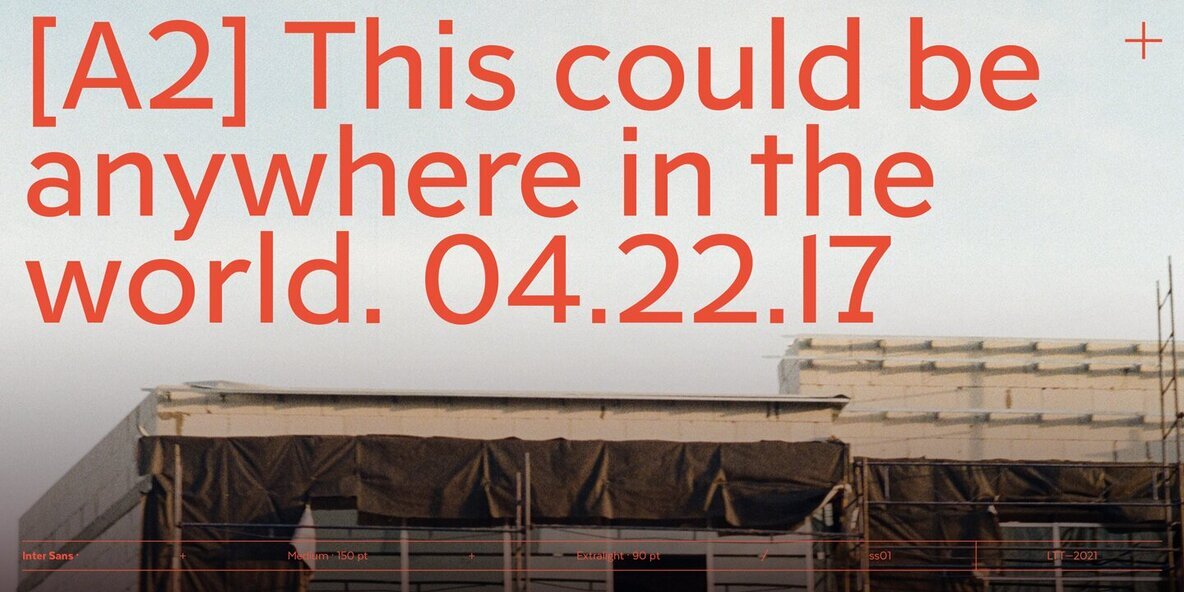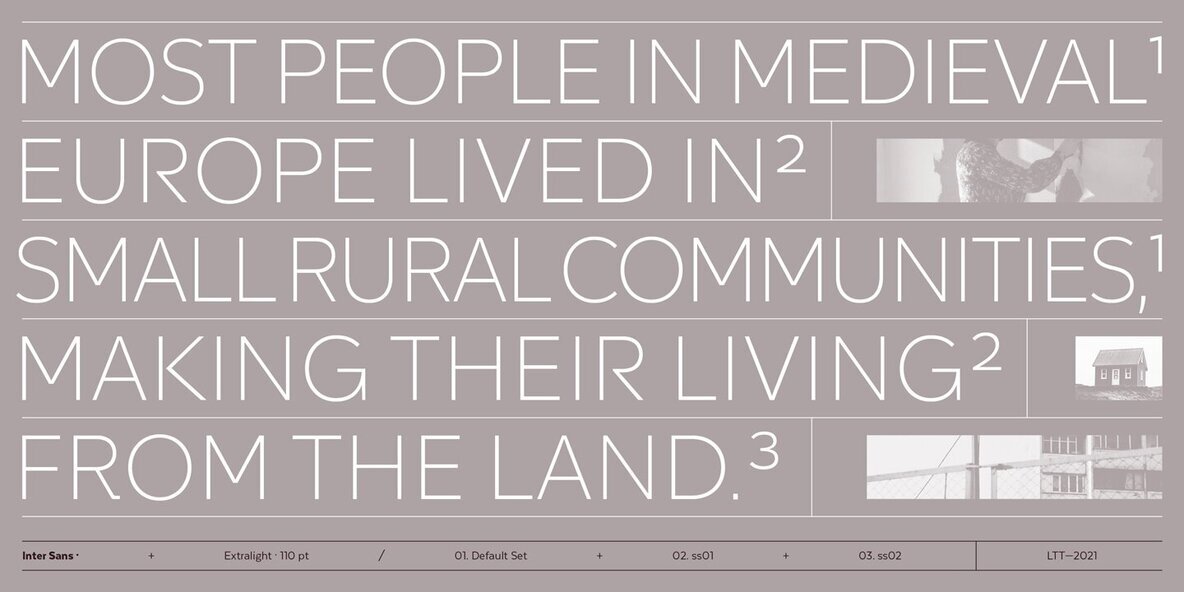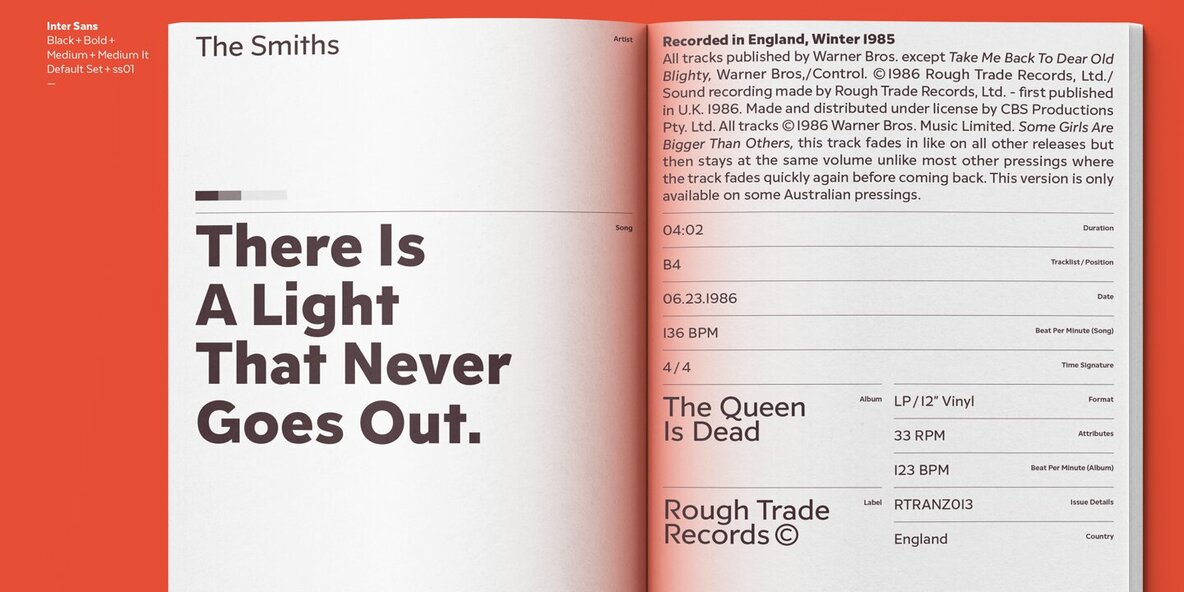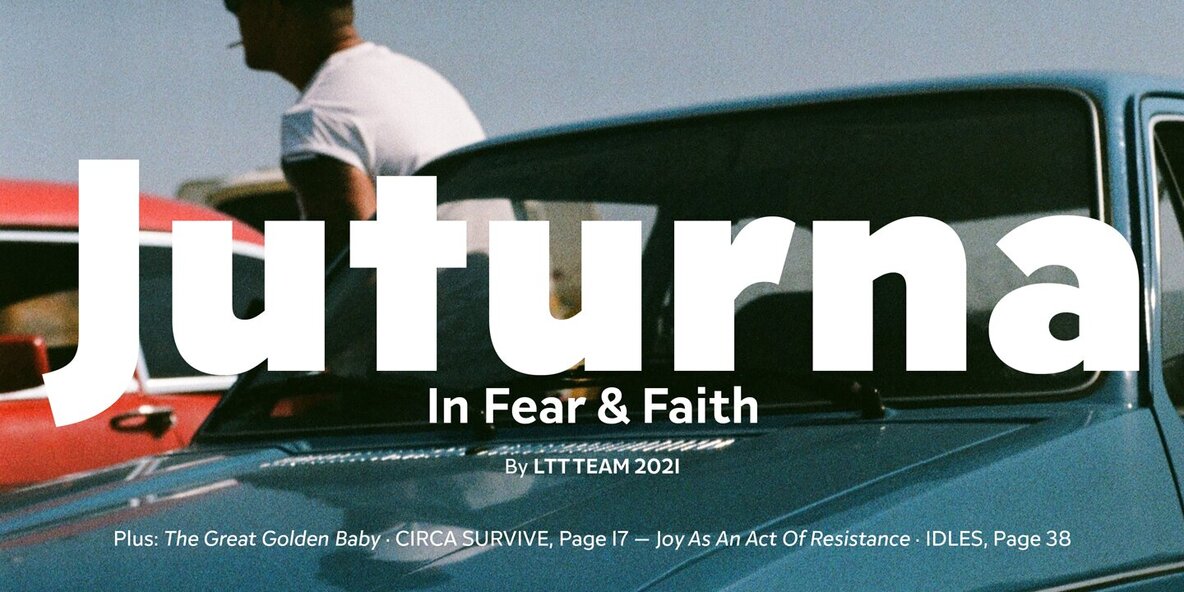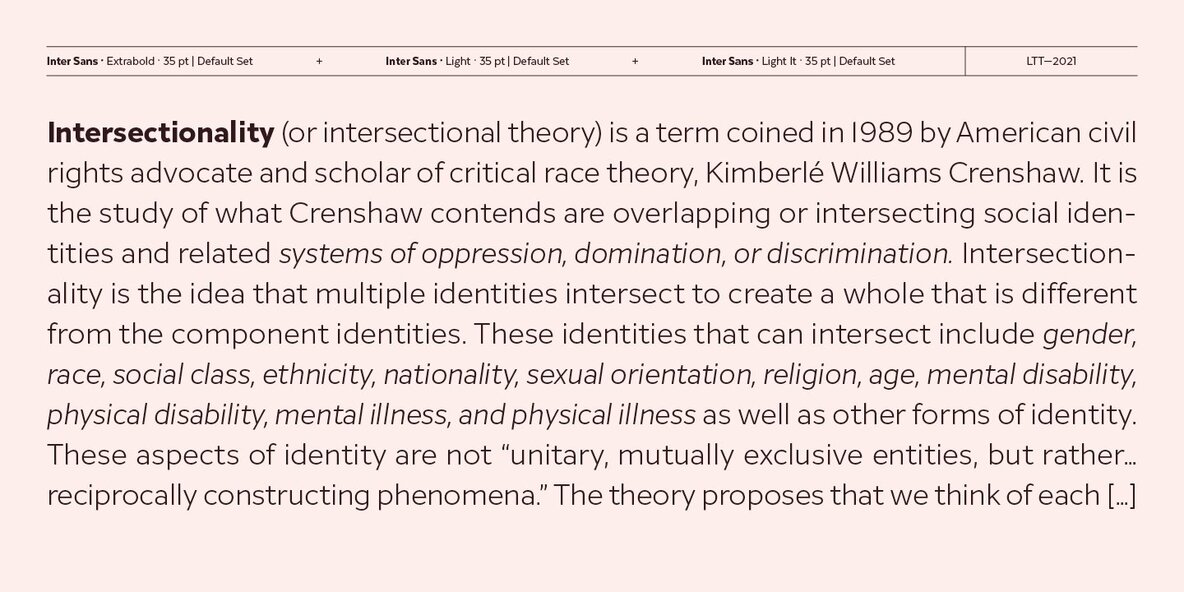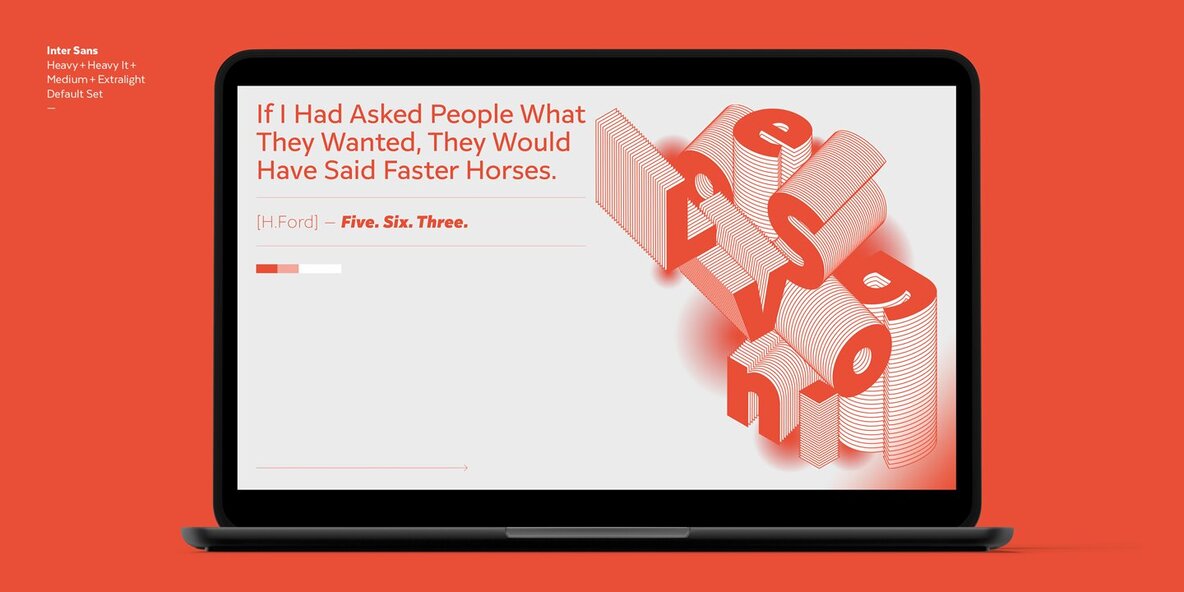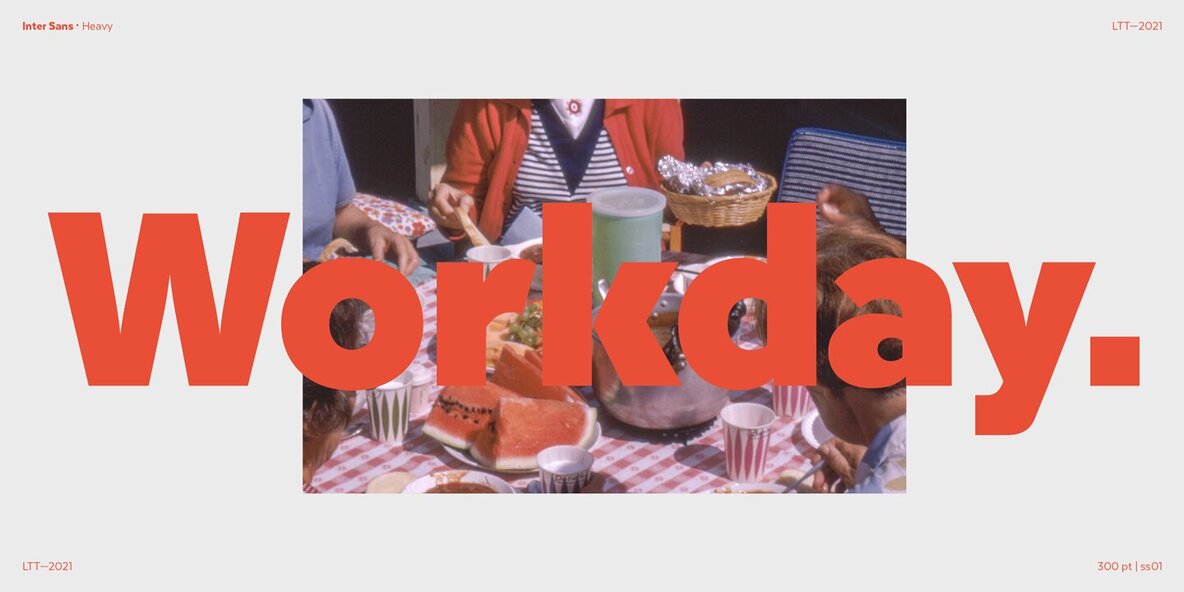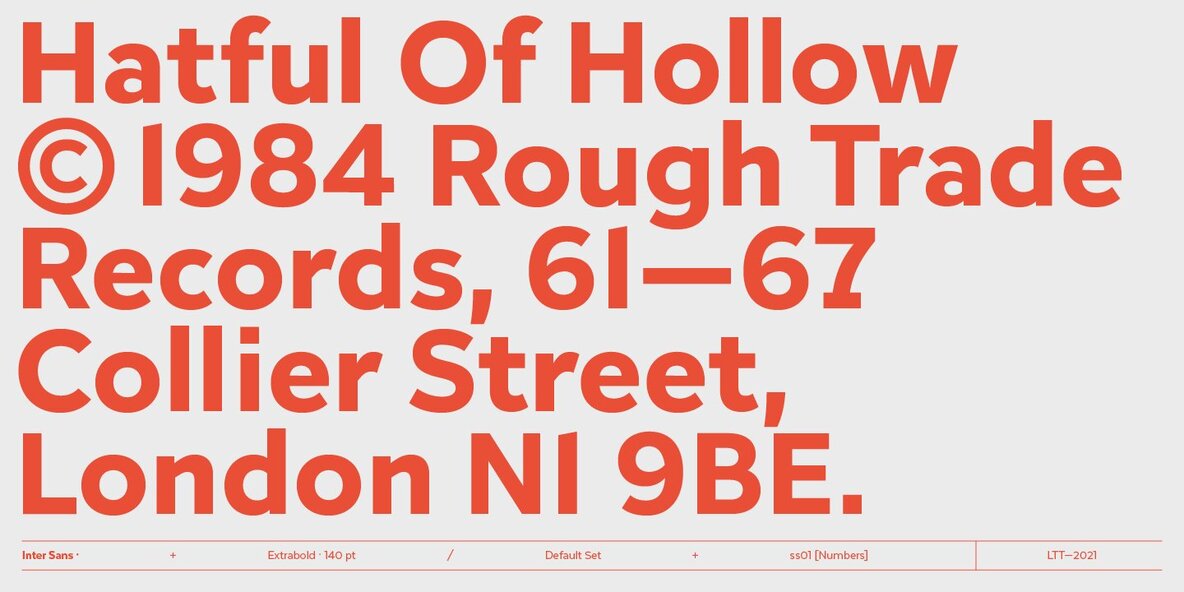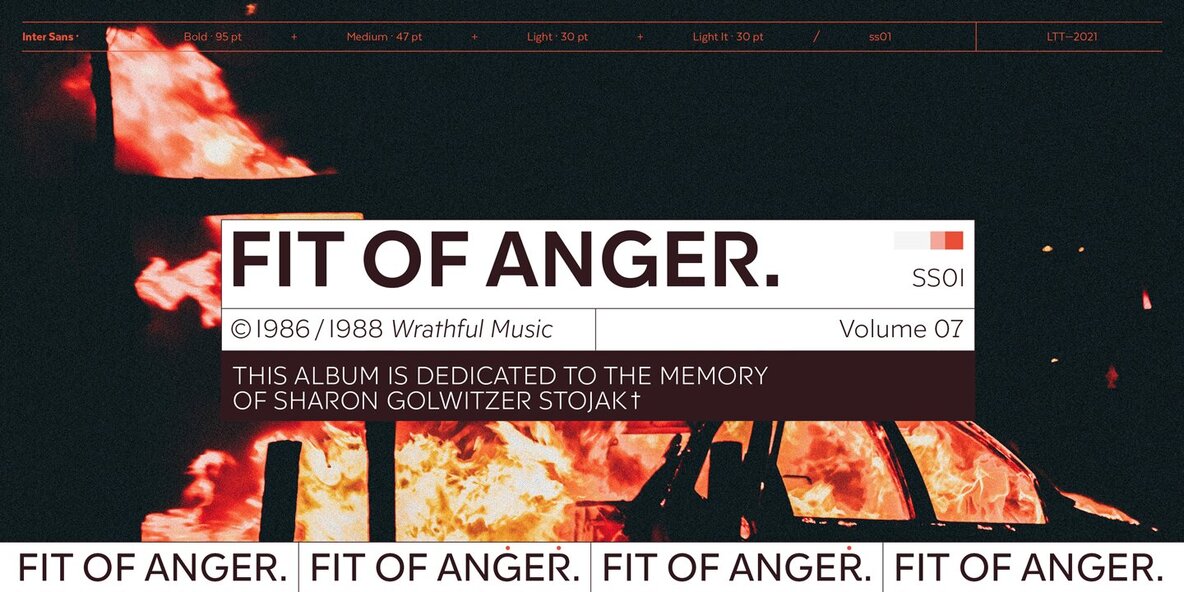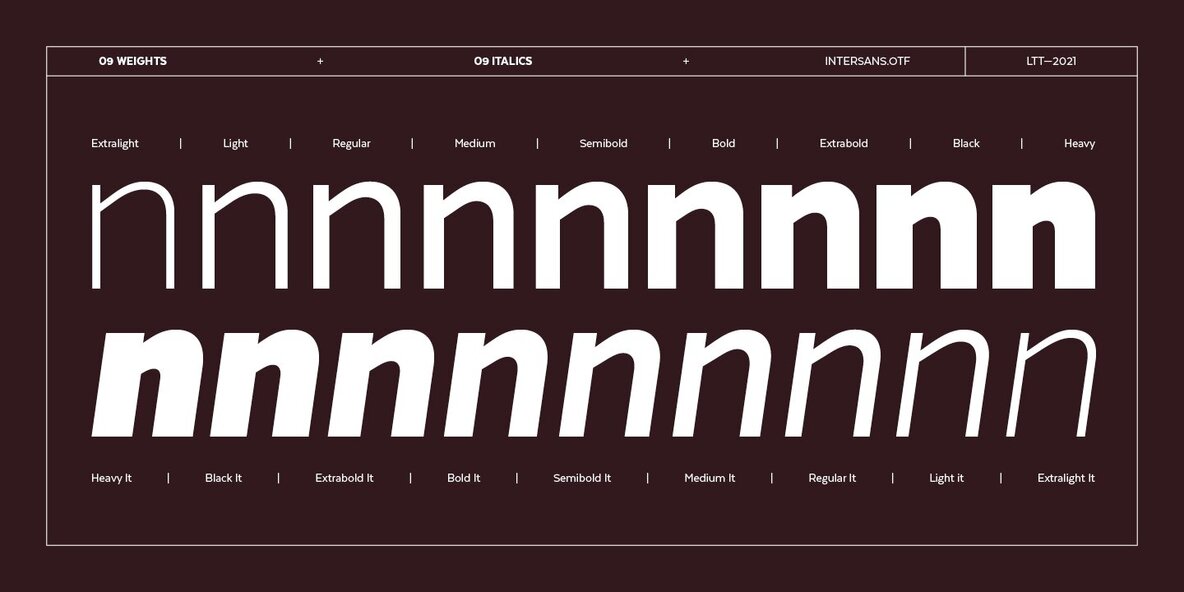
Inter Sans Font
Imagine a sans Rockwell…Well, we did it. That’s how Inter Sans was born—as a reinterpretation of Rockwell. However, as the process moved forward the font took on its own personality, adapted to current market and needs. Inter Sans is a new geometric sans with an early 20th century smell, soft curves and generous counterforms that give it a fresh look—a friendly font that communicates sincerity.
Inter Sans is well-suited for web use, apps, corporate use and short text (publishing). The font contains 439 glyphs—Latinotype’s basic character set plus alternative letters and signs—and supports over 200 languages that use the Latin alphabet.